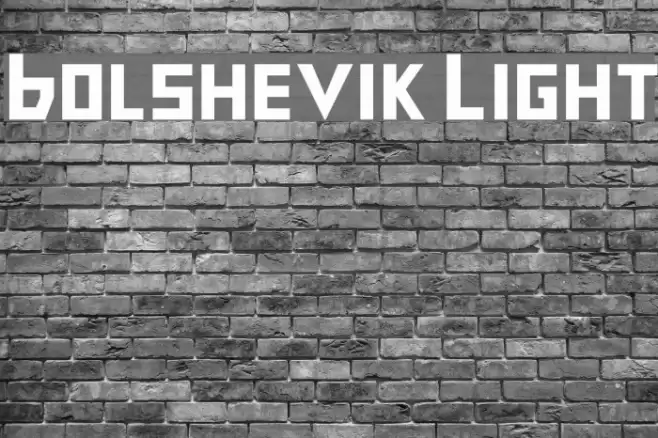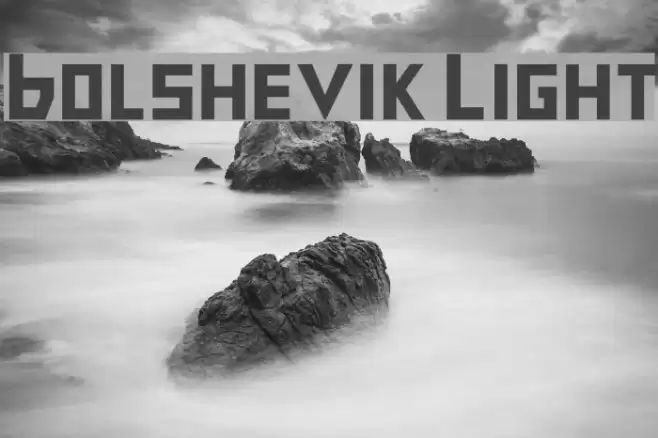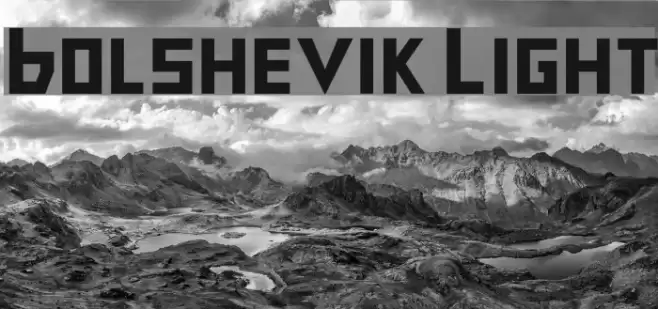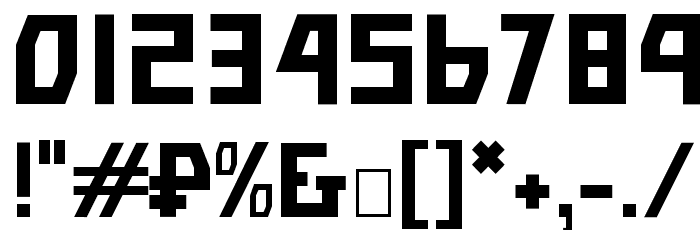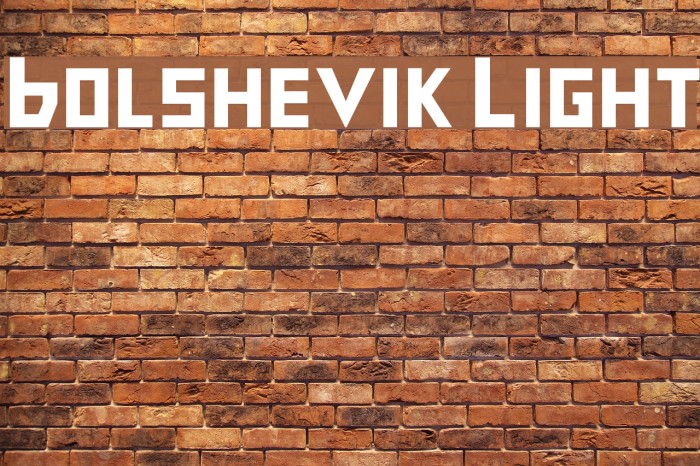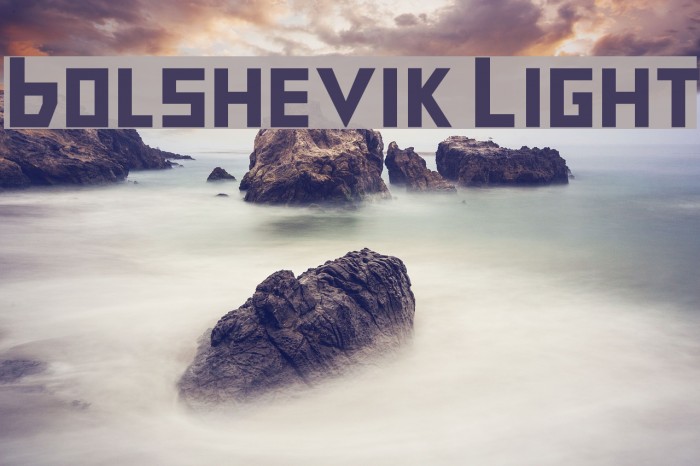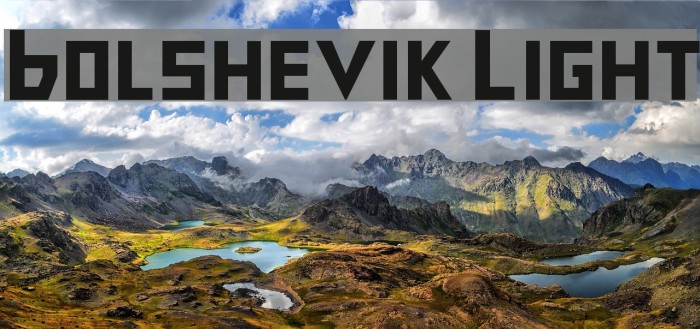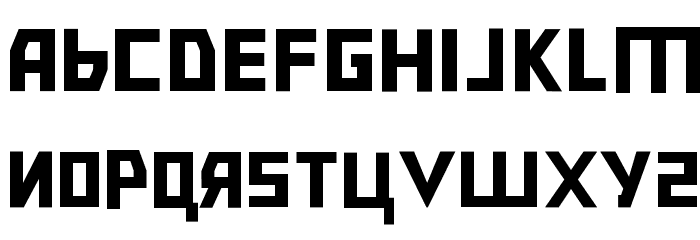
Bolshevik Light Font
Bolshevik Light Description
This font features a bold, geometric design with strong, angular lines and a distinct, blocky appearance. The characters are uniform in width, creating a cohesive and structured look. The uppercase and lowercase letters maintain a consistent style, with sharp edges and a modern aesthetic. The numerals and special characters follow the same design principles, ensuring a harmonious overall appearance. This font's unique style is reminiscent of constructivist and industrial design, making it stand out with its bold and assertive presence.
A bold, geometric font with a modern, blocky design from Uncategorized fonts.